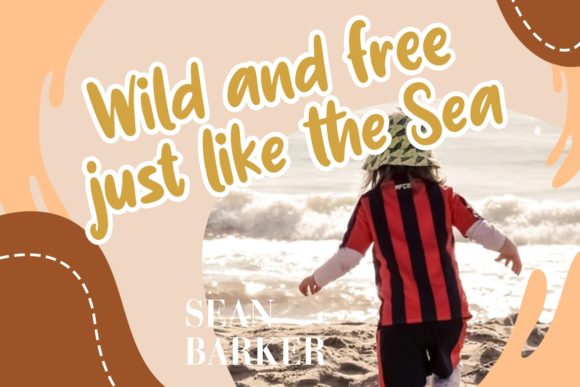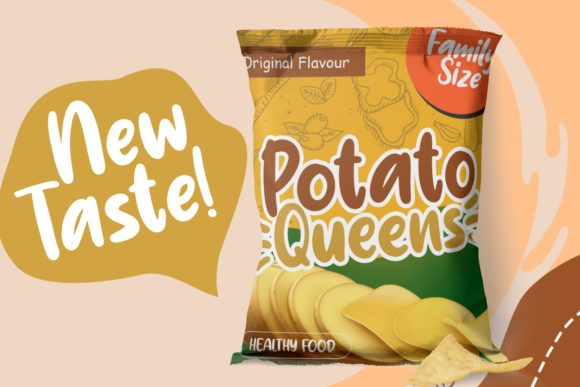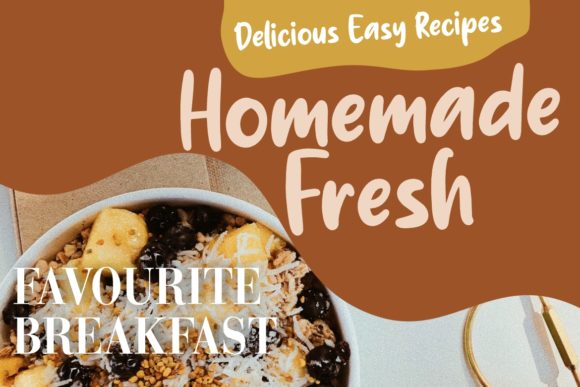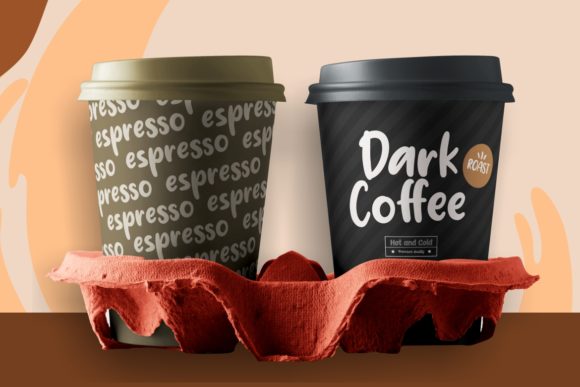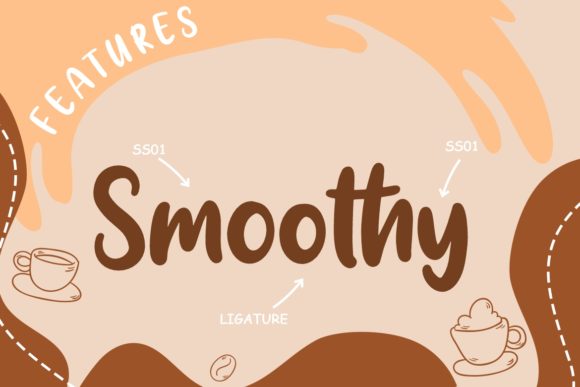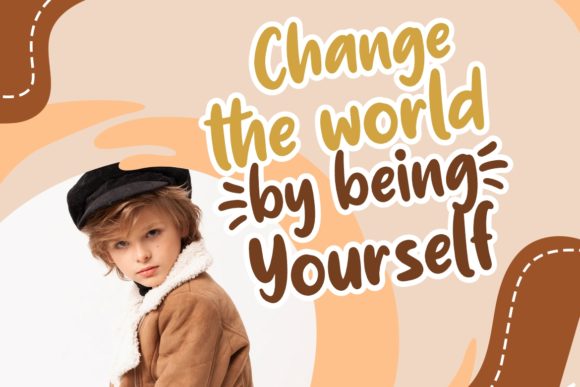
Creamy Font: The Perfect Addition to Your Design Arsenal
Are you tired of using the same old fonts in your designs? Look no further than the Creamy font, a cool and friendly display font that’s perfect for adding a touch of whimsy to your creations. Whether you’re working on a cartoon-related design, a children’s game, or just any project that requires a lovely touch, Creamy is an amazing choice.
What Makes Creamy Font So Special?
Creamy font is a unique and versatile typeface that’s designed to bring a smile to your face. Its soft, rounded edges and creamy texture give it a friendly and approachable feel that’s hard to resist. This font is perfect for designers and crafters who want to add a playful touch to their work, without sacrificing readability or style.
Key Features of Creamy Font
- Unique Texture: Creamy font features a distinctive texture that’s reminiscent of creamy frosting or soft, fluffy clouds. This texture adds a tactile feel to your designs and sets them apart from the crowd.
- Rounded Edges: The rounded edges of Creamy font give it a soft, friendly feel that’s perfect for designs aimed at children or families.
- Highly Readable: Despite its playful texture and rounded edges, Creamy font is highly readable, even at smaller sizes.
- Versatile: Creamy font is suitable for a wide range of design applications, from cartoon-related designs and children’s games to branding, packaging, and more.
Uses for Creamy Font
Creamy font is an incredibly versatile typeface that can be used in a variety of design applications. Here are just a few ideas to get you started:
- Cartoon-related designs: Creamy font is a natural fit for cartoon-related designs, such as character logos, titles, and signage.
- Children’s games: The friendly, approachable feel of Creamy font makes it perfect for children’s games, puzzles, and educational materials.
- Branding and packaging: Creamy font can add a playful touch to your brand’s identity and packaging, helping to set you apart from the competition.
- Invitations and events: Use Creamy font to add a whimsical touch to your invitations, party decorations, and other event materials.
Tips for Using Creamy Font
To get the most out of Creamy font, here are a few tips to keep in mind:
- Pair with contrasting fonts: Pair Creamy font with a contrasting font to create visual interest and hierarchy in your designs.
- Experiment with colors: Creamy font looks great in a variety of colors, so don’t be afraid to experiment and find the perfect hue for your design.
- Use for headlines and titles: Creamy font is perfect for headlines and titles, where its playful texture and rounded edges can really shine.
In conclusion, Creamy font is a unique and versatile typeface that’s perfect for designers and crafters looking to add a playful touch to their work. With its soft, rounded edges and creamy texture, this font is sure to bring a smile to your face and a touch of whimsy to your designs. So why not give Creamy font a try today and see how it can elevate your designs to the next level?